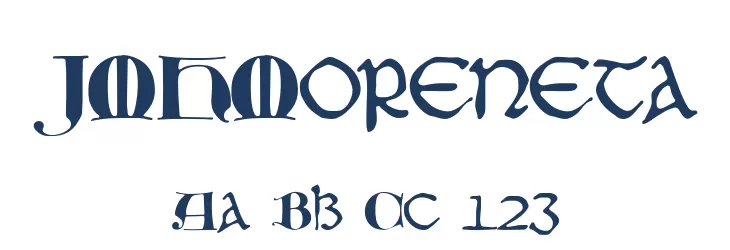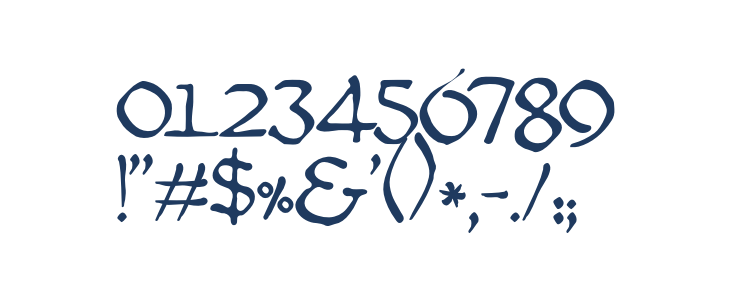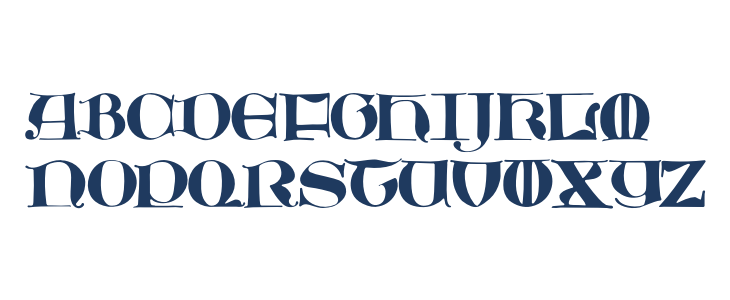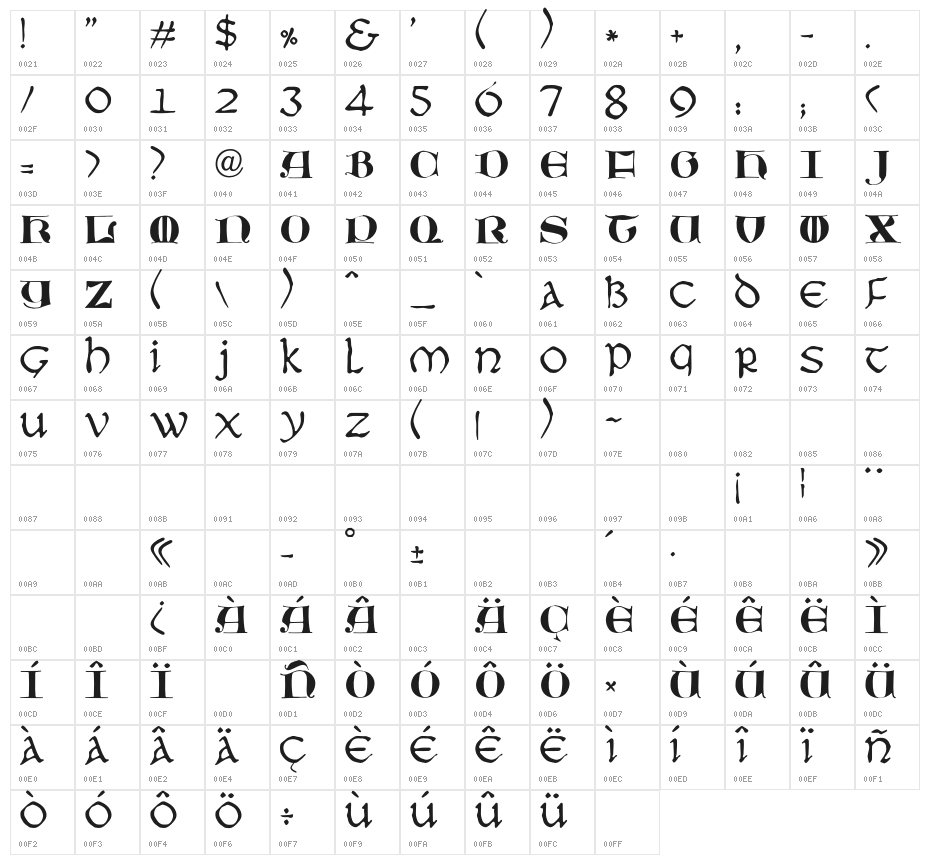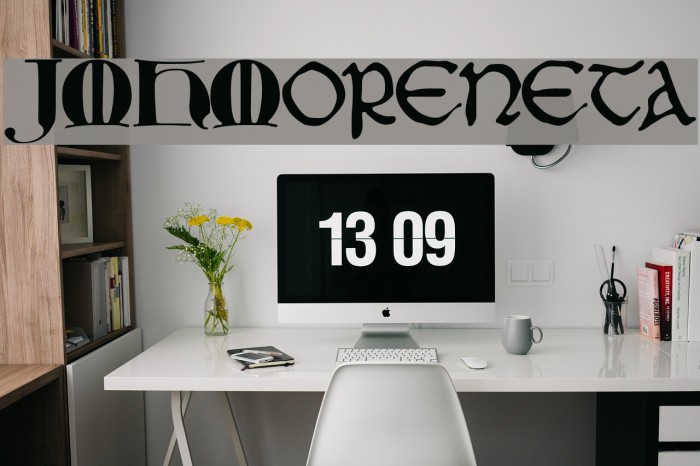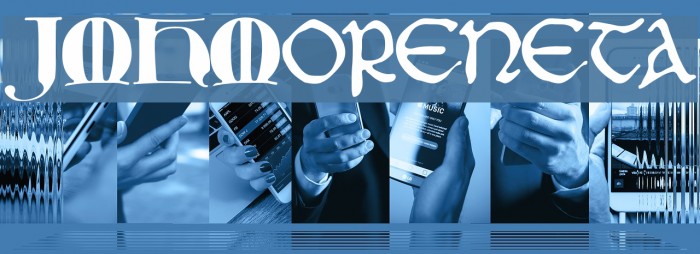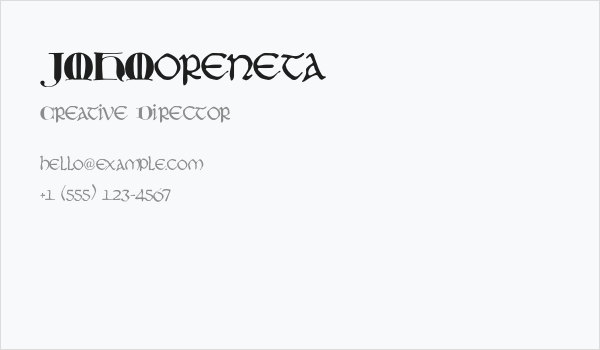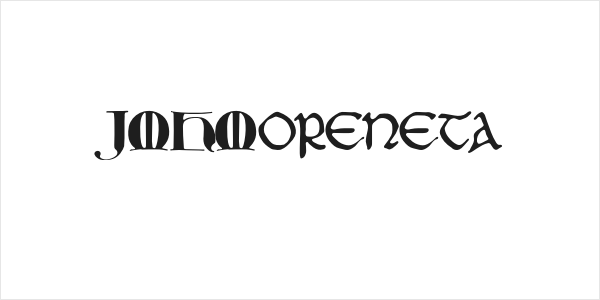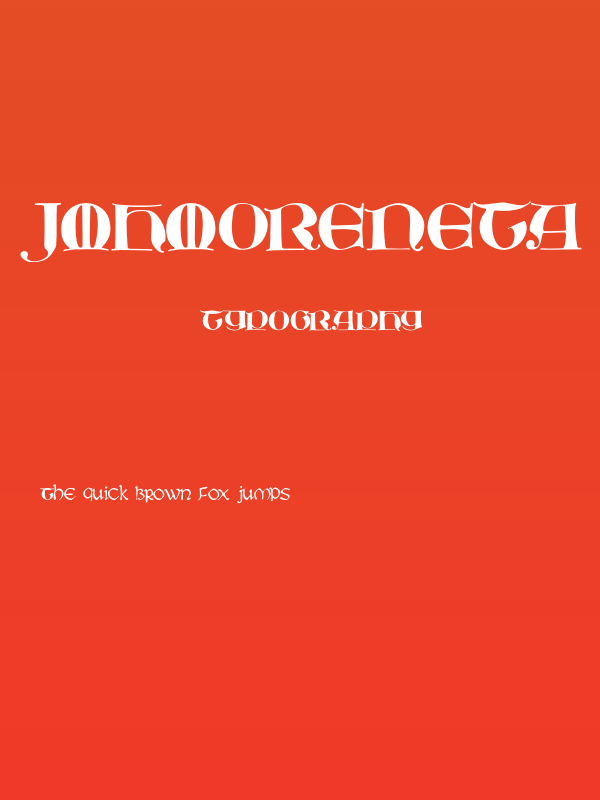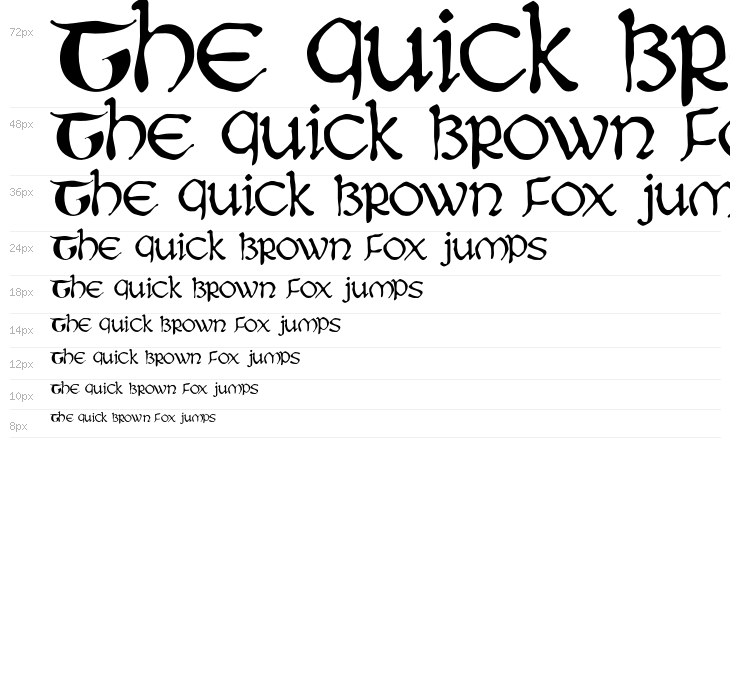
JMHMoreneta Font
JMHMoreneta Description
This font exhibits a unique blend of traditional and modern elements, characterized by its bold and decorative style. The uppercase letters are particularly striking, with intricate curves and sharp edges that give them a dramatic flair. The lowercase letters maintain a consistent style, with a slightly more subdued appearance that complements the uppercase. The numerals are bold and clear, making them easily readable while still maintaining the overall aesthetic. Special characters are designed with the same attention to detail, ensuring a cohesive look across all glyphs. The font's high contrast in stroke thickness adds to its visual impact, making it suitable for eye-catching designs.
| Proposed Projects | Ideal for branding, posters, and headlines where a dramatic and artistic touch is desired. |